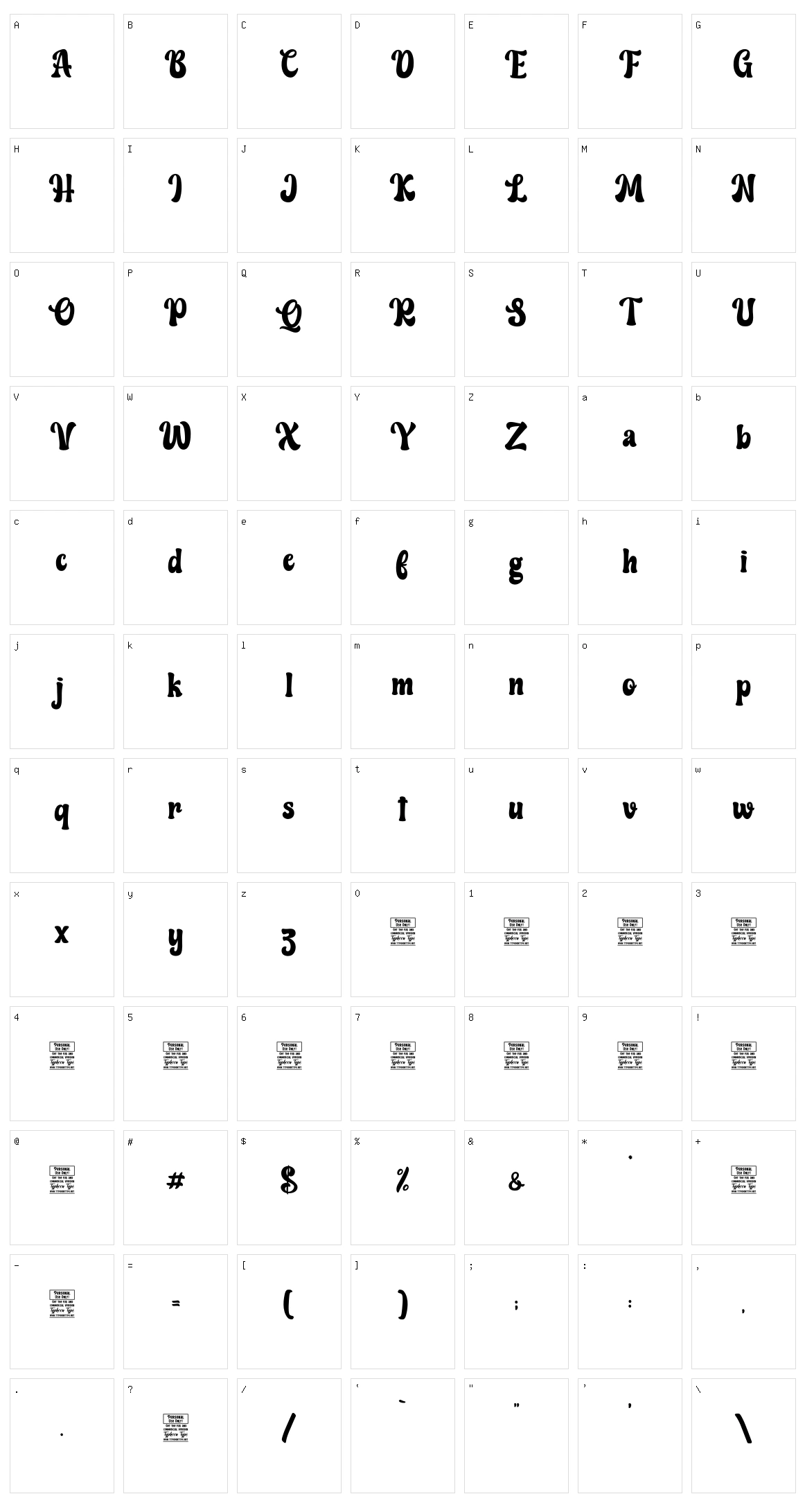
The free font Love Bohemian is carefully designed by Typhoon Type™ - Suthi Srisopha, showcasing a thoughtful balance of creativity and usability and falls under the Groovy font style. When you download the ZIP file, it contains only 121.59 KB of font files, making it lightweight and quick to download. Please review the license details below to understand permitted usage and distribution rights. If license information is not available, we recommend using this font for personal projects only or contacting the author directly for commercial usage permissions.